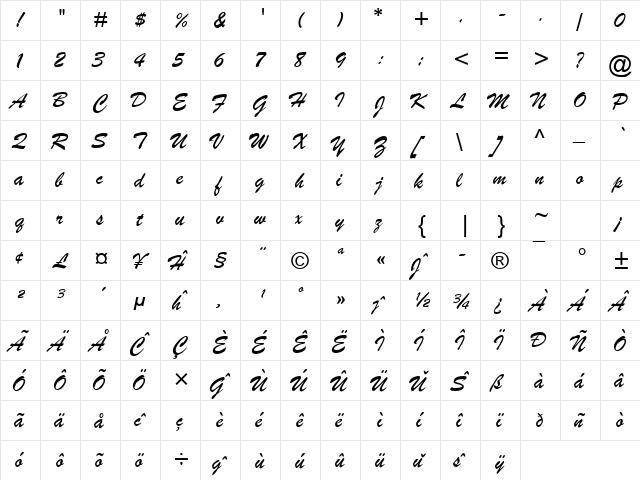
Brush Script MT Eo Italic Font Preview
Brush Script MT Eo Italic
Brush Script MT Eo Italic Font Details
Design Context for Brush Script MT Eo Typeface
Brush Script MT Eo brings a calligraphic fluidity to the page — its connecting strokes and expressive curves give it an unmistakably human quality.
Font Pairing: Combine Brush Script MT Eo with a simple geometric sans for maximum contrast — the tension between flowing curves and clean structure is a classic typographic pairing.
Pro Tip: Use Brush Script MT Eo for short runs of text — names, titles, or taglines. Extended body copy in script faces tires the eye quickly.